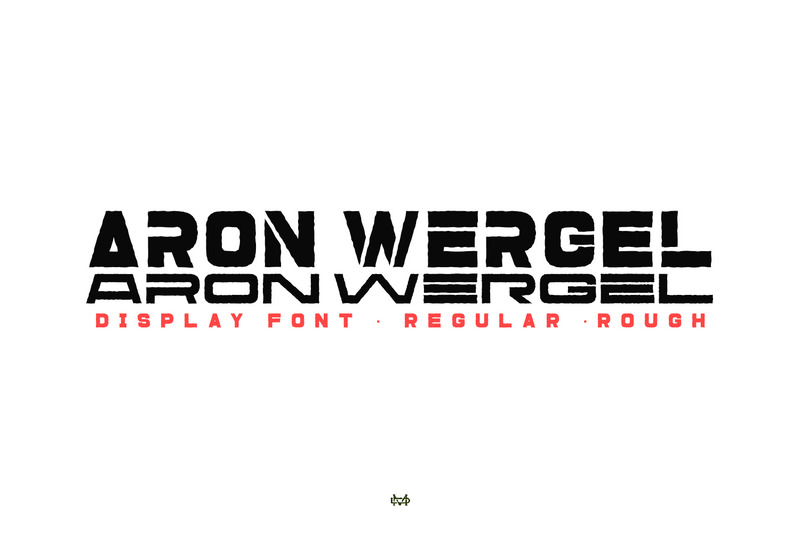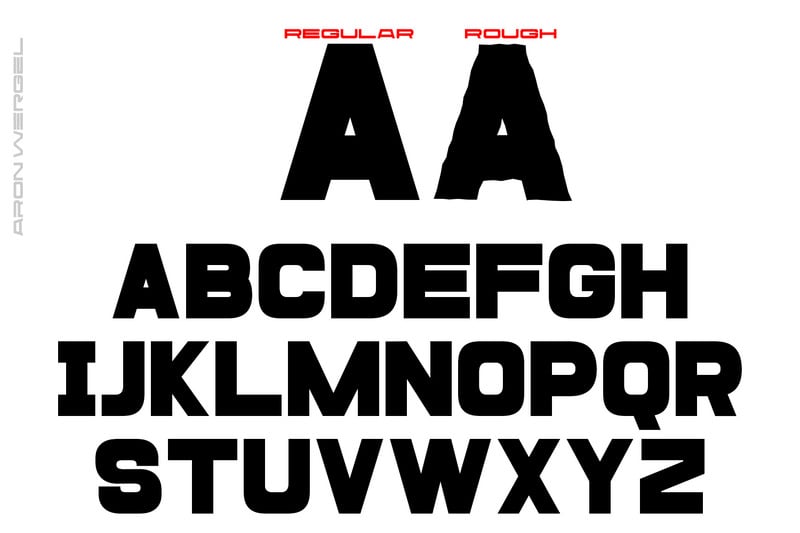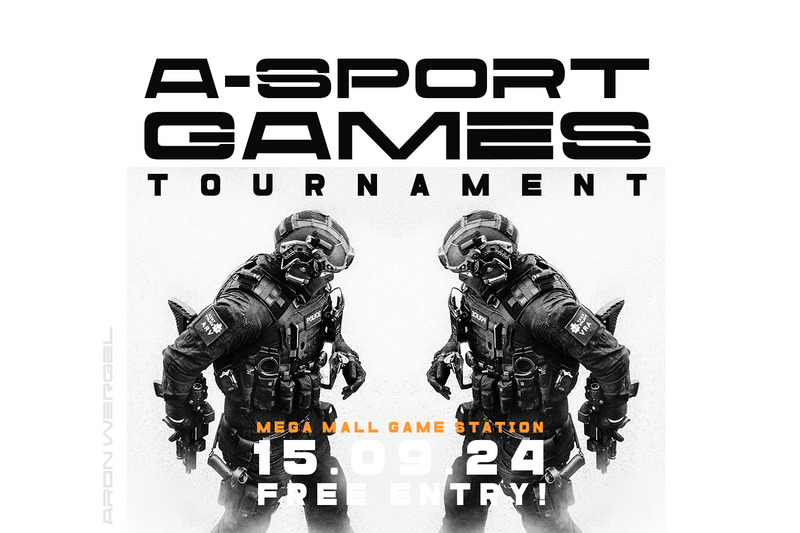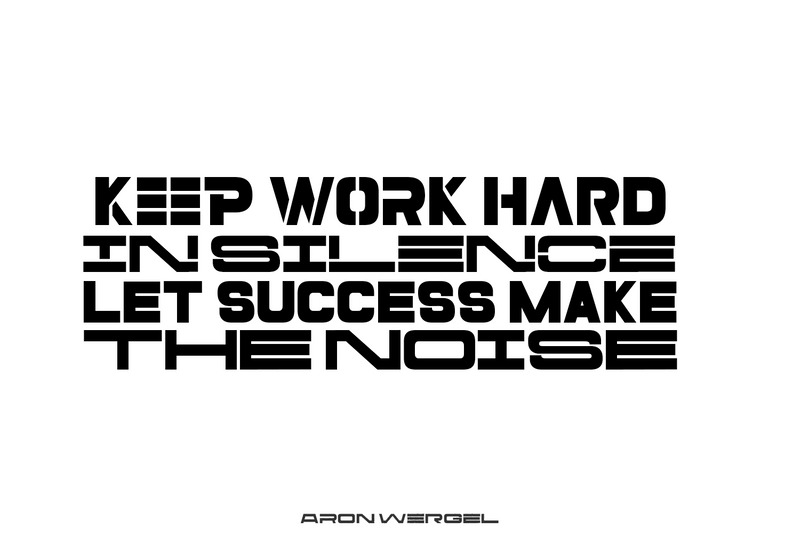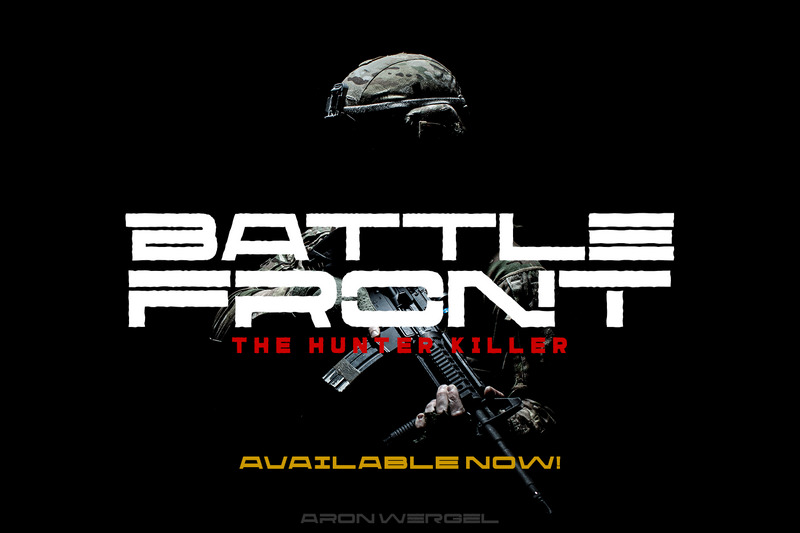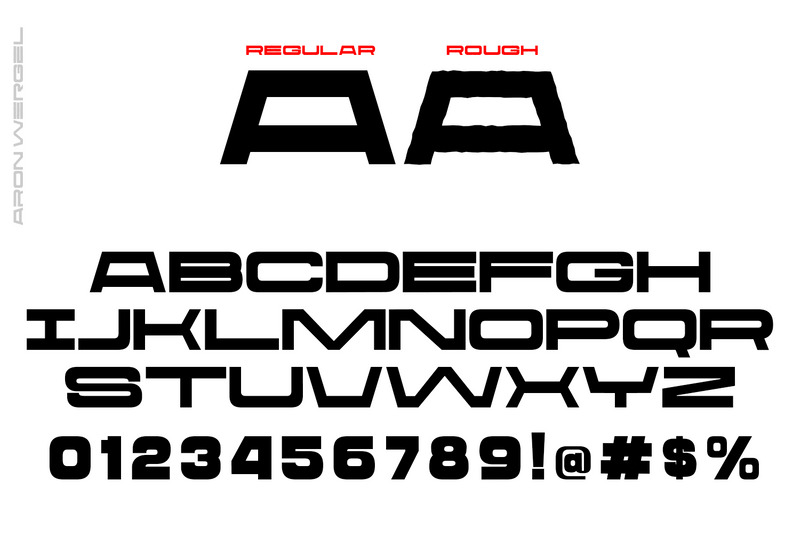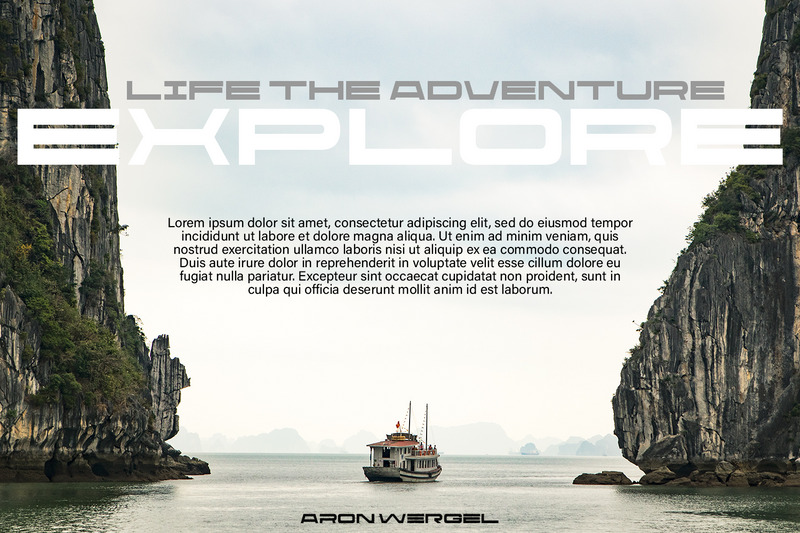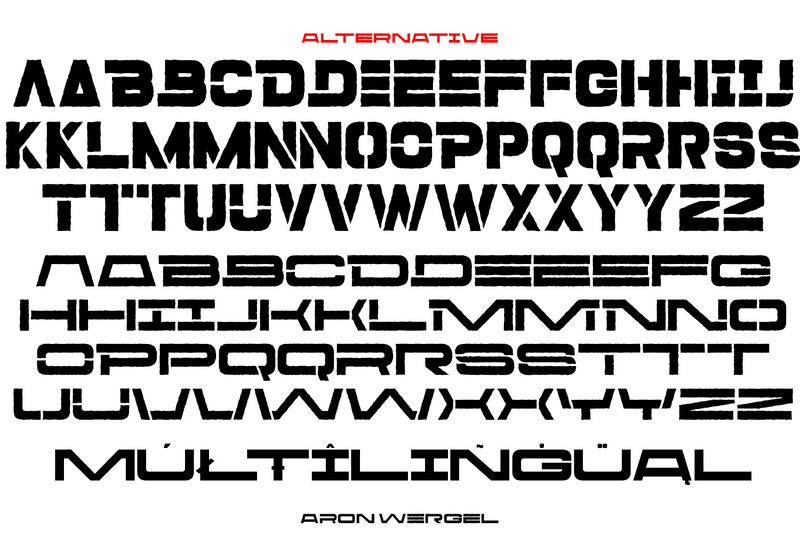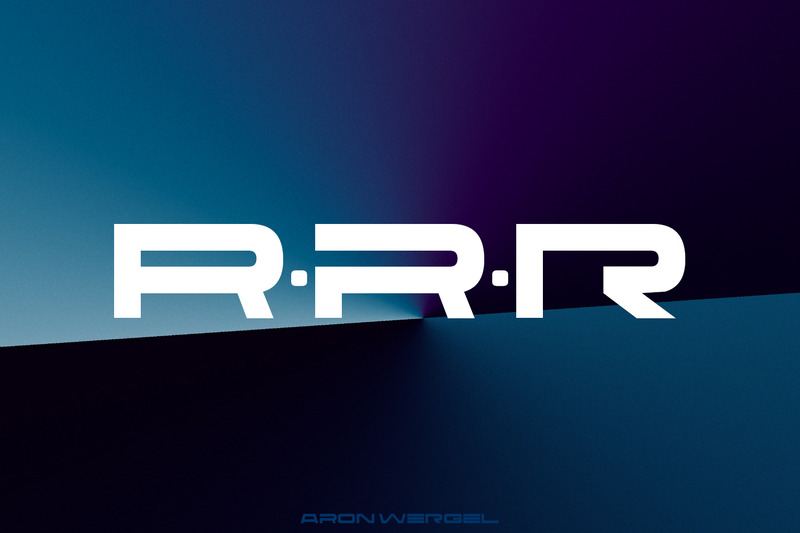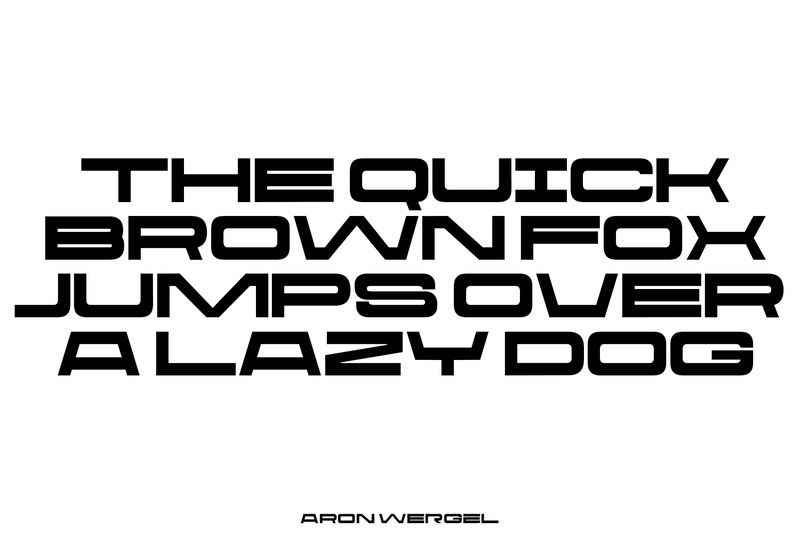
Aron Wergel - Futuristic Sans
Aron Wergel is a Futuristic sans come with a two style regular and rough. You can explore and combine creating rhythm and texture for comfortable reading. It allows multiple options when designing, adapting to different composition solutions. use this font for any branding, product packaging, invitation, quotes, headline, label, poster, logo etc.
Feature
•  Uppercase & Lowercase
•  Number & Symbol
•  International Glyphs
•  Multilingual support
•  Alternative
• Ligature